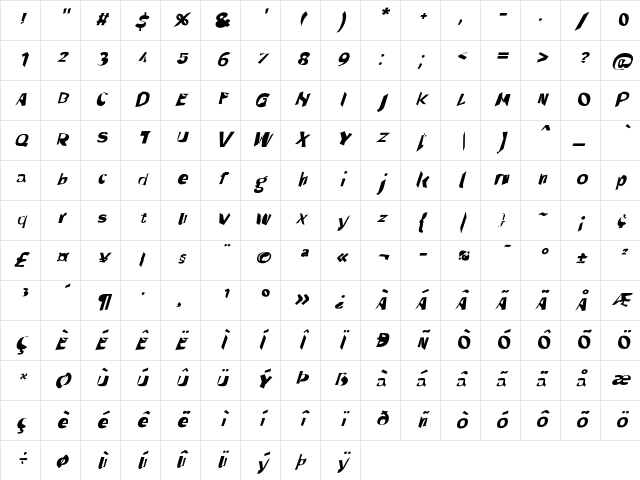
Complete Through The Black WideIta glyph index. Displaying only characters natively supported by Through The Black WideIta font.
Through The Black embraces imperfection - its rough, textured character adds raw authenticity to designs that want to feel lived-in and unconventional.
Pro Tip: Use Through The Black at larger sizes where the texture and irregularity of each letterform can be clearly seen - it loses its character at small sizes.